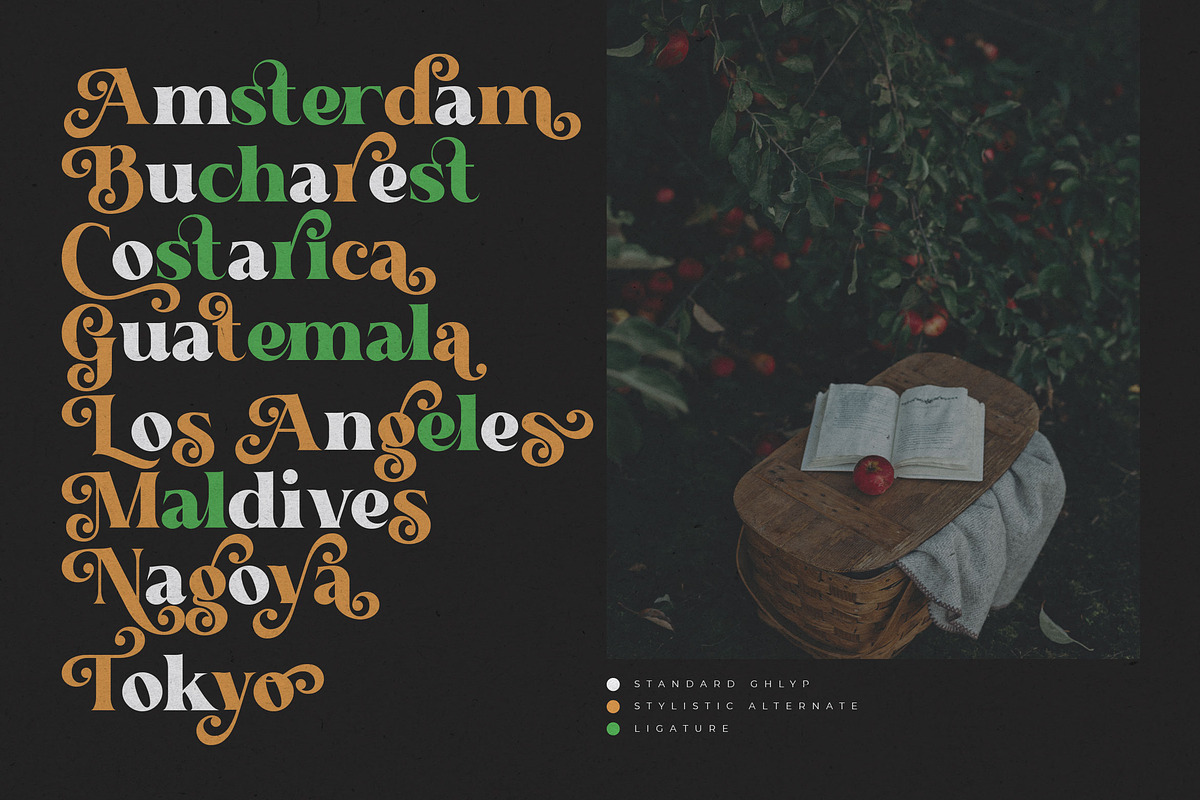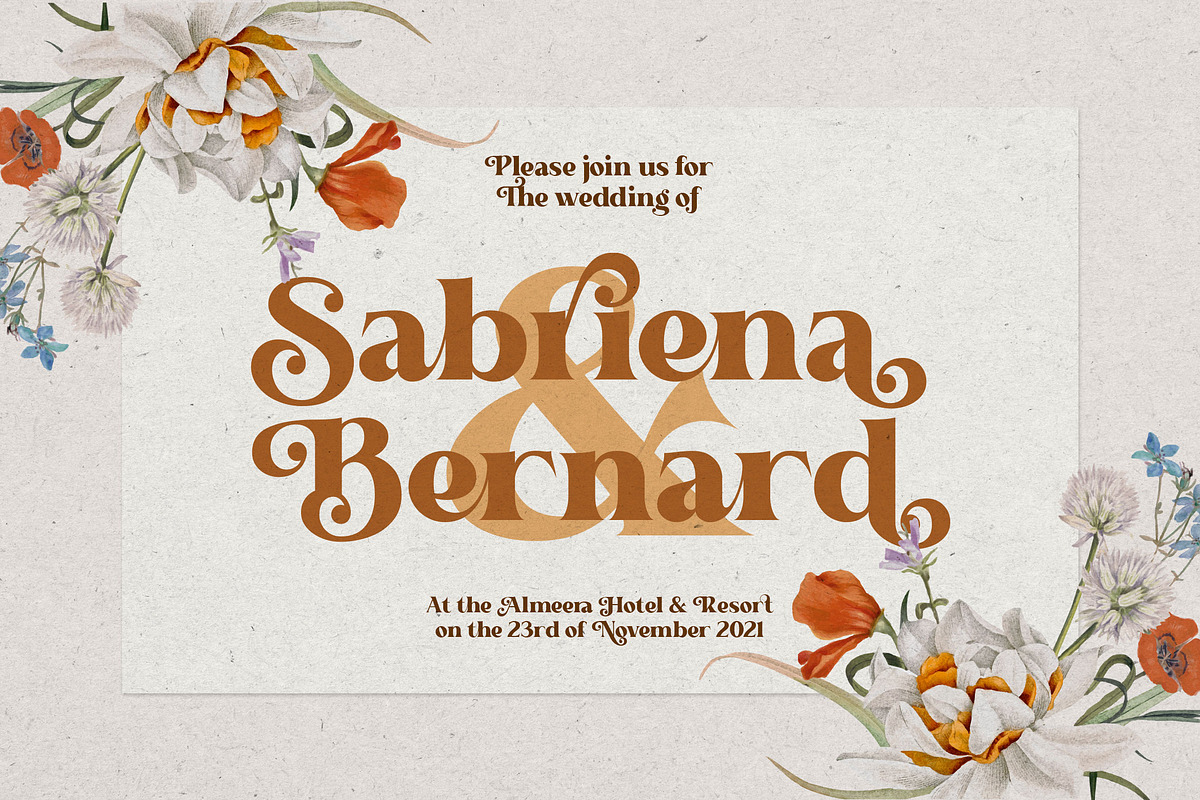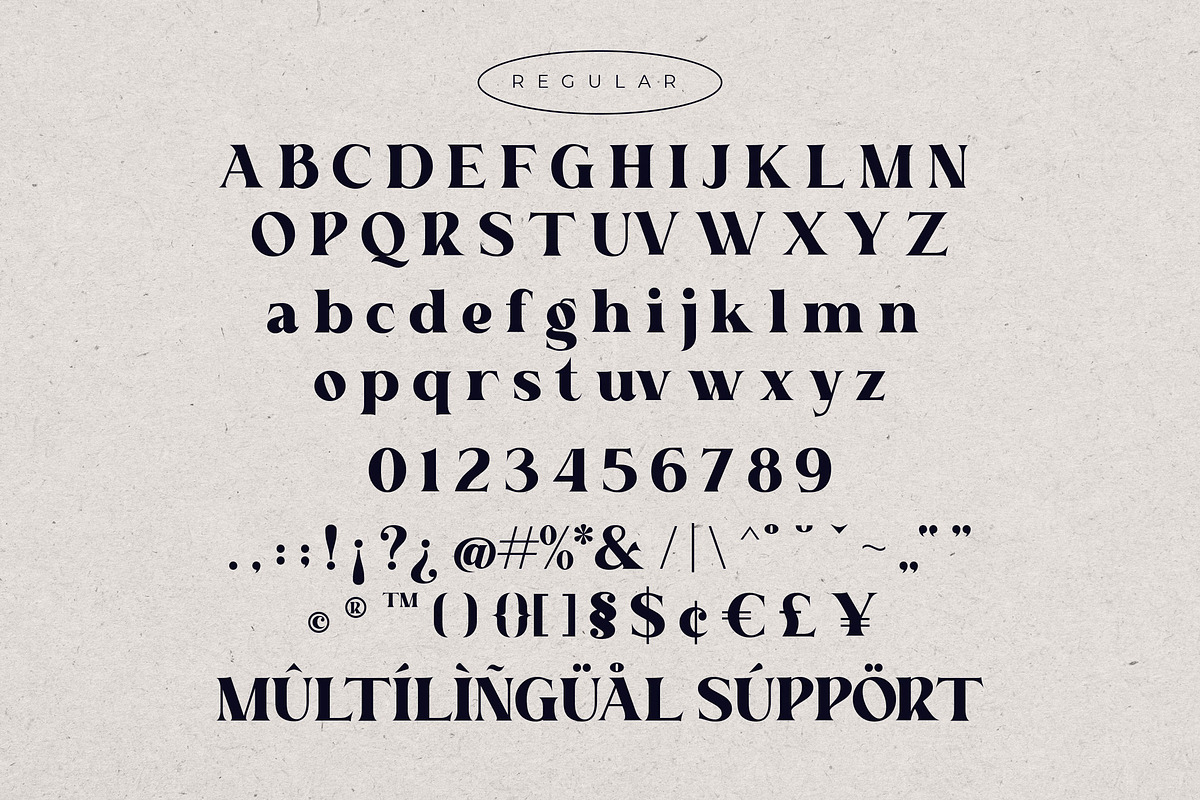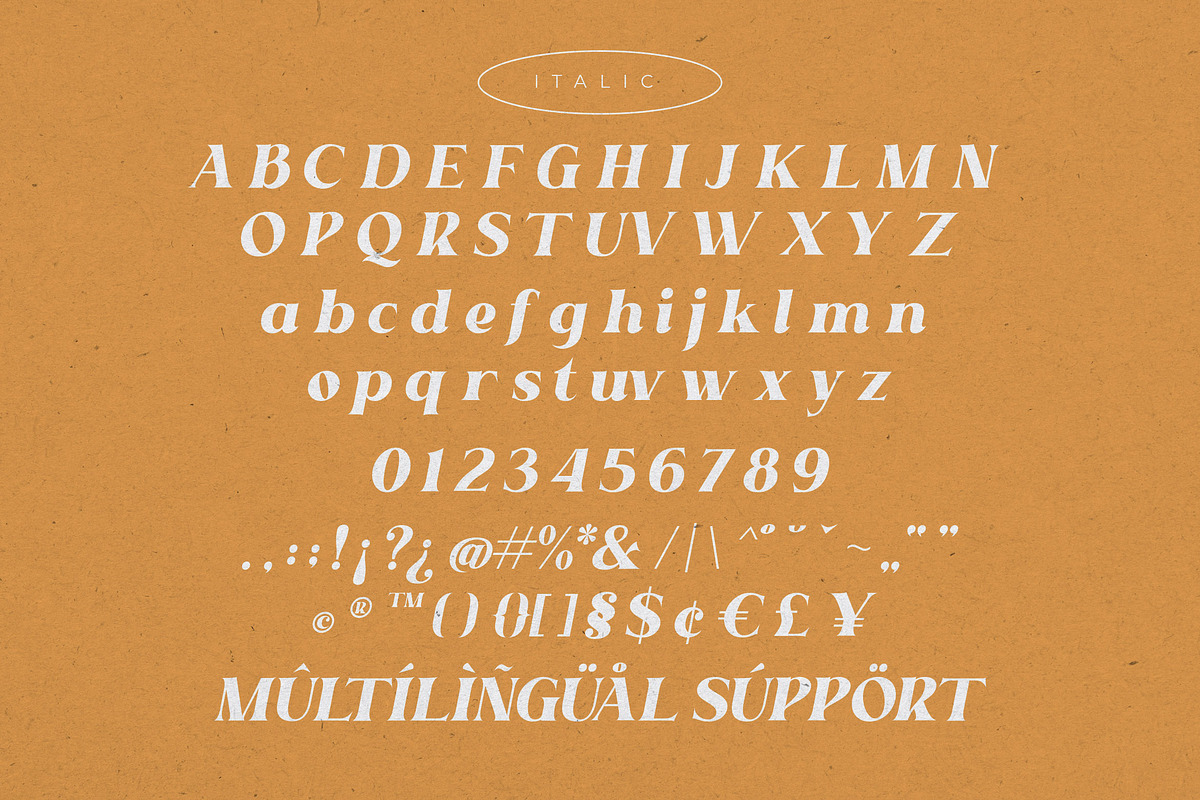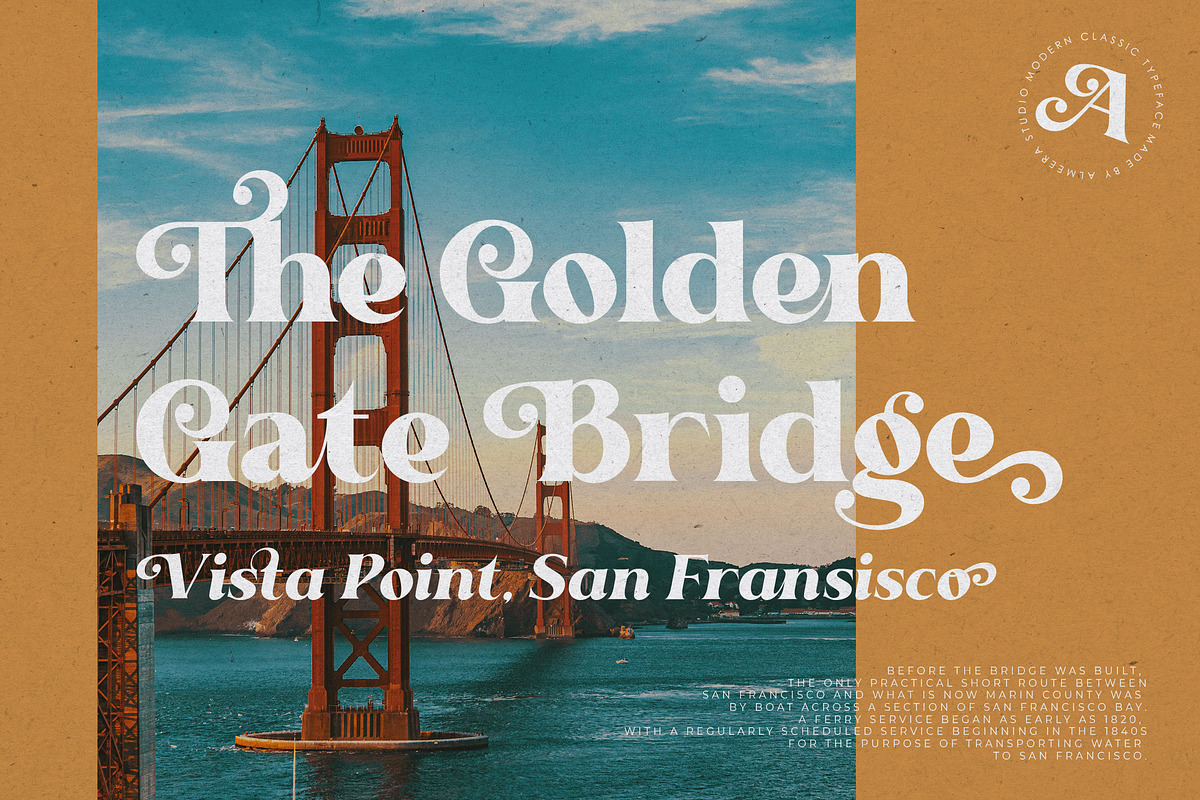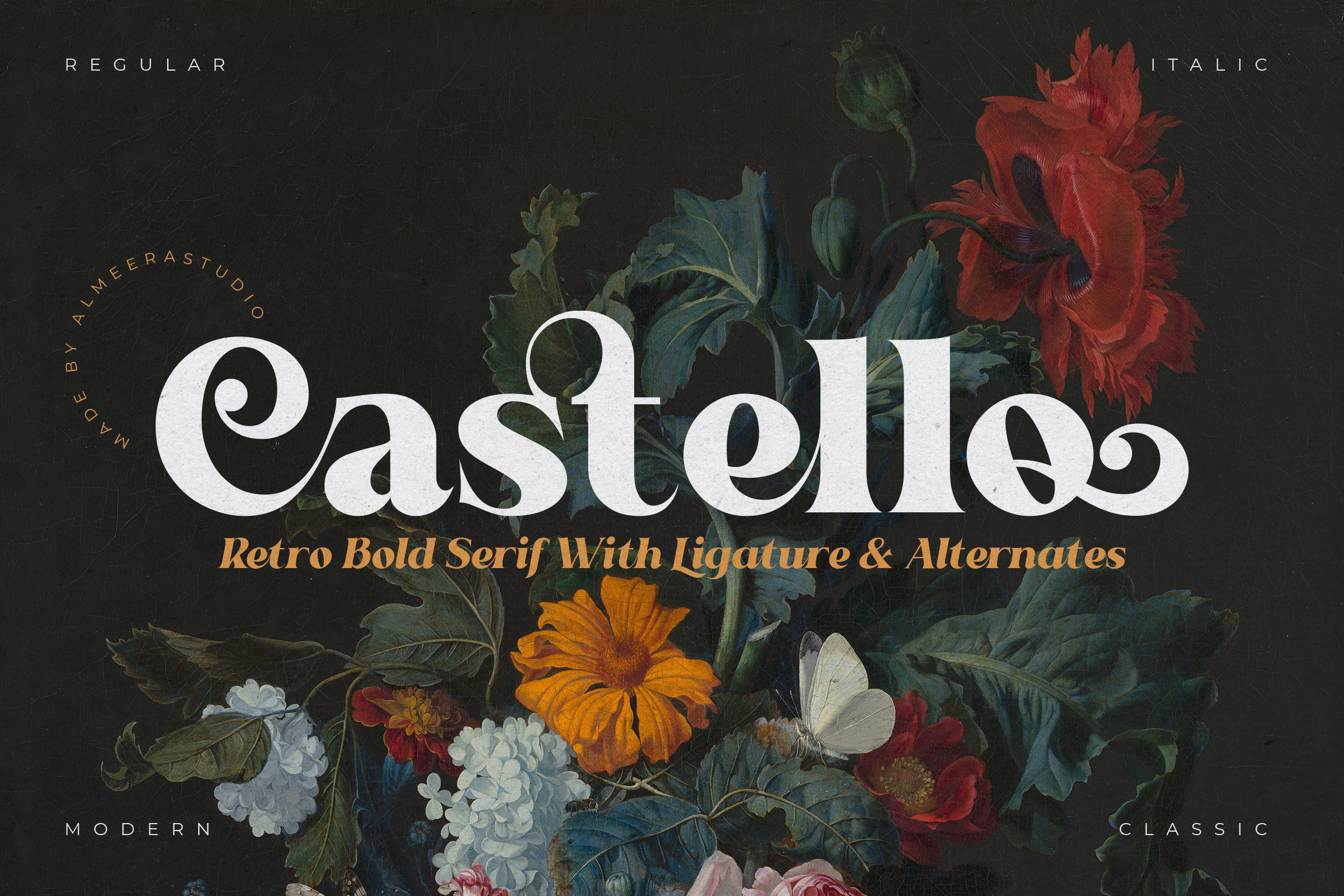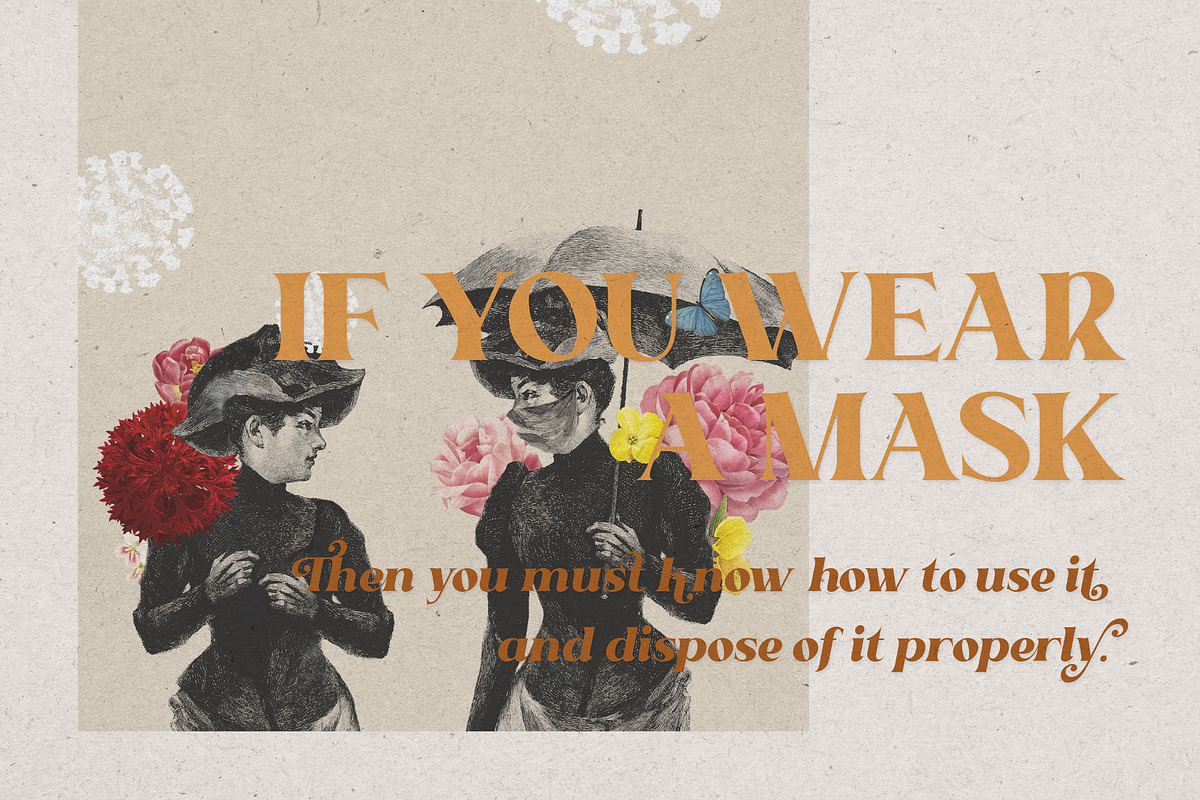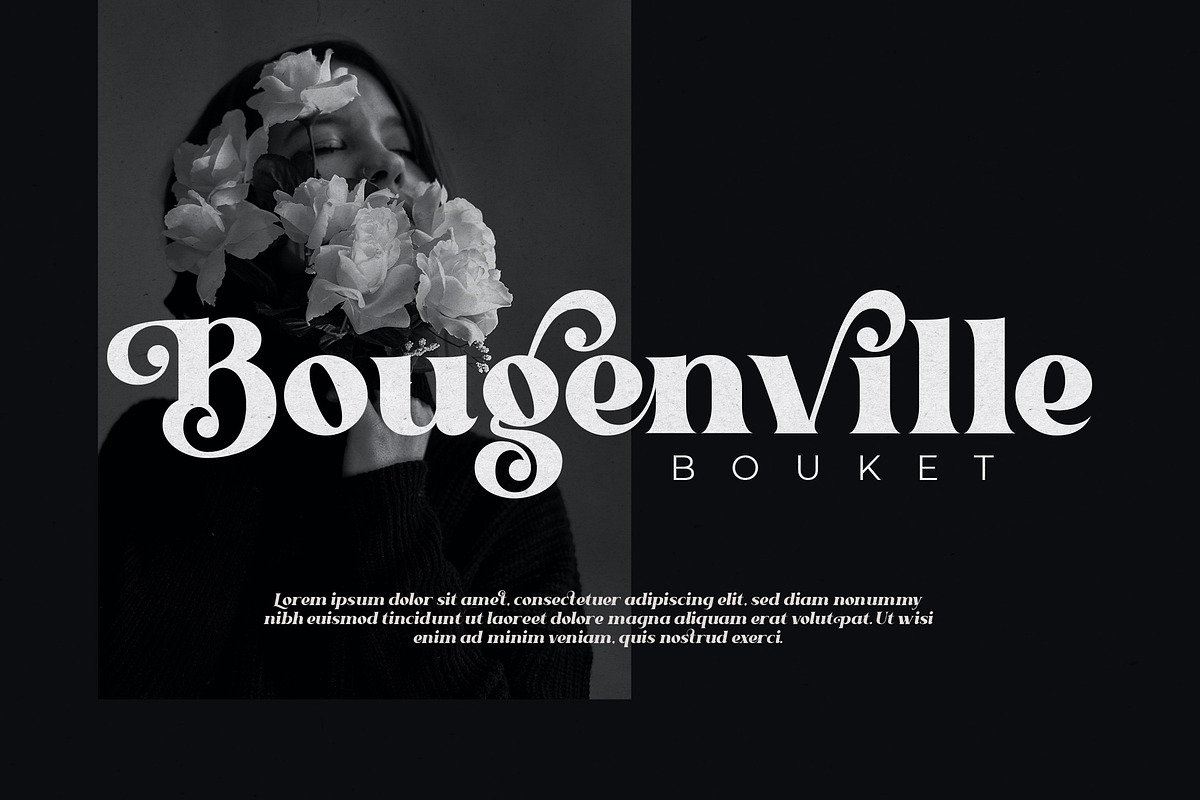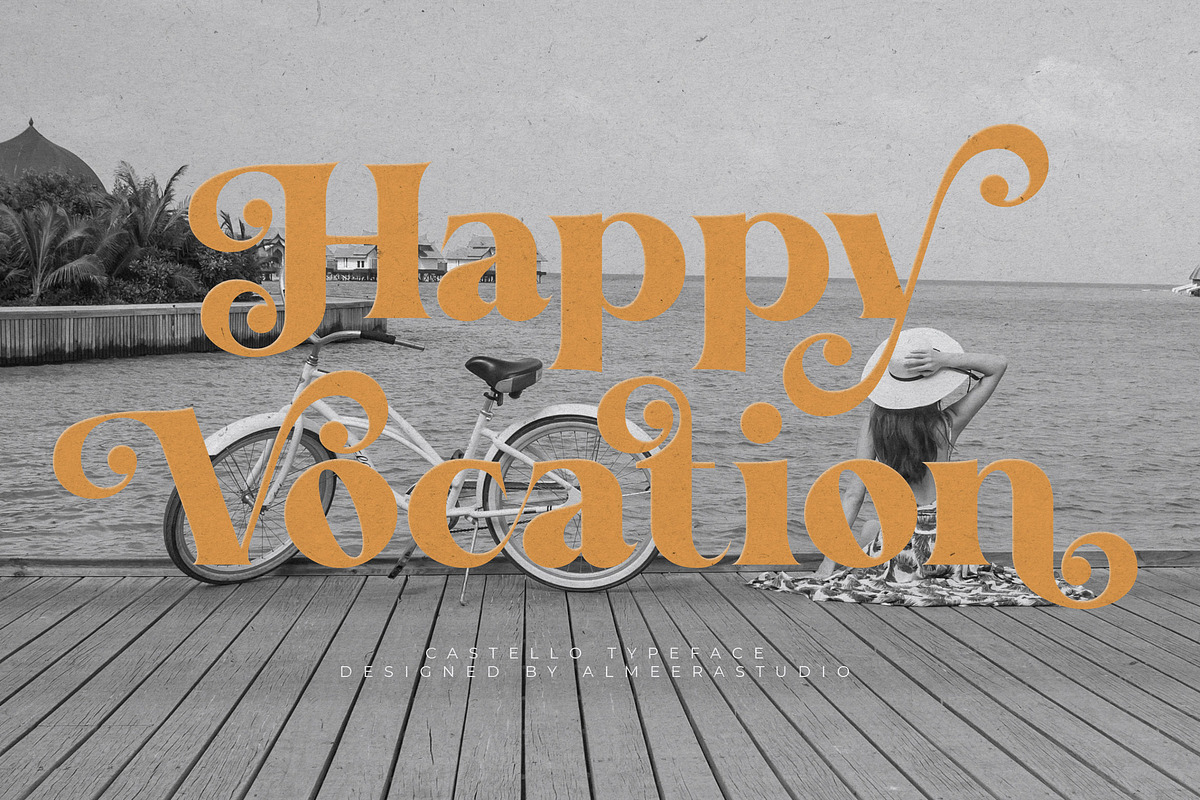
Castello Typeface | Retro Bold Serif
Introducing our newest typeface called Castello Typeface - Retro Bold Serif with ligature & alternates. Comes in 2 styles regular & italic, this typeface has many alternates with swashes that can make your lettering / logotype become more interesting. The clean and neat of a serif combined with the swirl swashes makes this font very attractive.
This font perfectly made to be applied especially in logo, and the other various formal forms such as invitations, labels, logos, magazine headers, books, greeting / wedding cards, Clothing Branding, product packaging, fashion, make up, quotes, stationery, novels, cutting, labels or any type of advertising purpose.
Current Language Support : Danish, English, Finnish, French, German, German (Switzerland), Norwegian Bokmål, Norwegian Nynorsk, Portuguese, Spanish, Swedish, Swiss German.